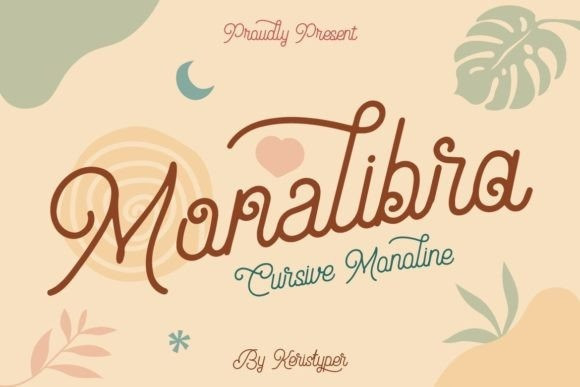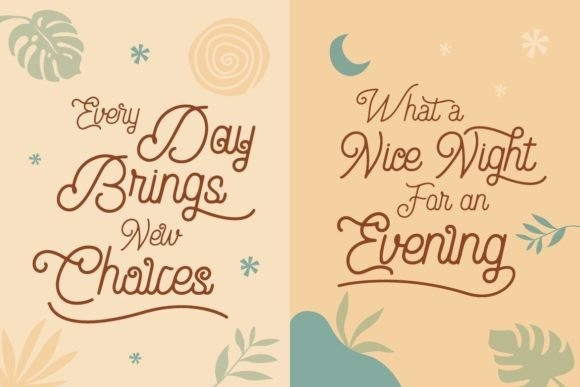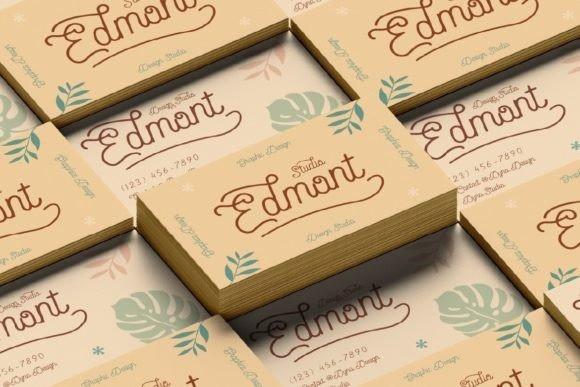
Monalibra Font
Monalibra is an elegant and vintage handwritten font perfect for logo design, social media posts, movie titles, book titles, and more. Add it now to your fonts library, as it has the potential to enhance each of your designs!